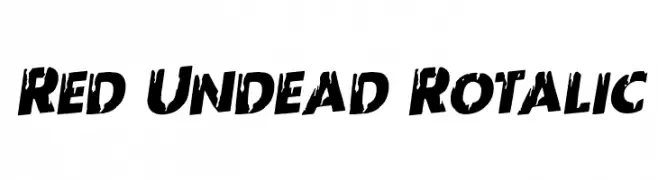
A bold, slanted, and distressed font with a dynamic and rugged style.
A bold, distressed font with a slanted, grunge-like appearance.
A bold, distressed, and slanted font with a rugged, graffiti-like appearance.